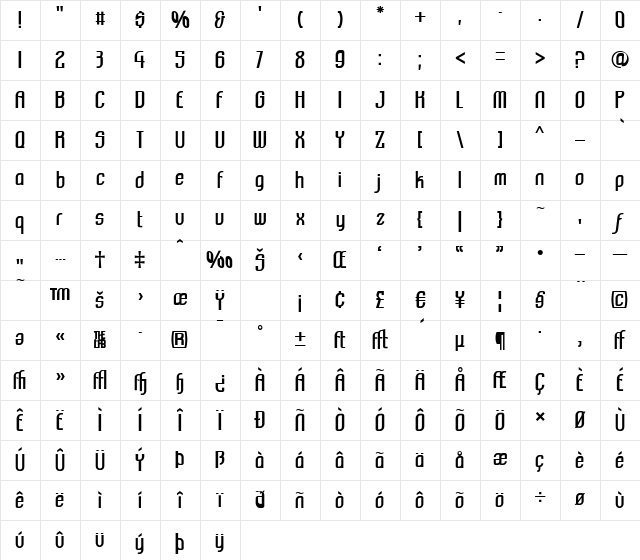
Komikazba Regular
Designer: Apostrophe
Design Context for Komikazba
Komikazba is a composed and adaptable typeface that performs quietly and consistently across a wide range of design contexts.